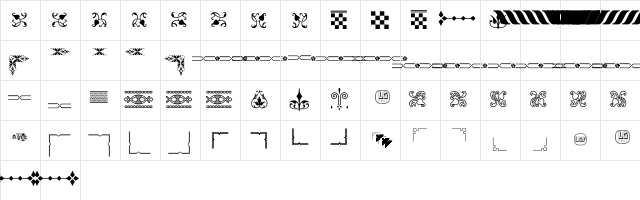
Ornamentos Orlas y Vinetas LGt Regular
| Foundry | MANUEL LAGE |
| Designer | Manuel Lage |
Design Context for Ornamentos Orlas y Vinetas LGt Typeface
Ornamentos Orlas y Vinetas LGt brings ornamental detail and strong personality to headlines and identities, where visual impact matters more than quiet functionality.
Font Pairing: Pair with a clean neutral sans-serif for body copy to let Ornamentos Orlas y Vinetas LGt's character lead without overwhelming the composition.
Pro Tip: Treat Ornamentos Orlas y Vinetas LGt as the centrepiece of your typographic hierarchy. One strong heading set in a decorative face can carry an entire layout.